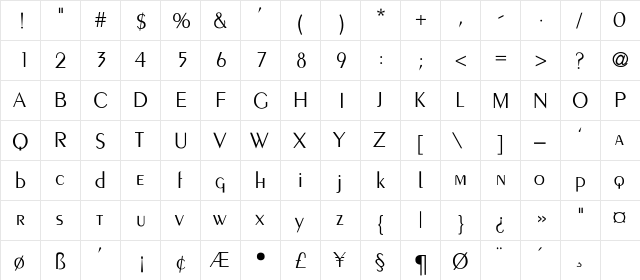
Cove-LIGHT-Thin Regular
Design Context for Cove-LIGHT-Thin Typeface
Cove-LIGHT-Thin takes a measured approach to typography — its balanced proportions and neutral character make it a reliable workhorse for both digital and print work. Its slender proportions lend an understated elegance to any composition.